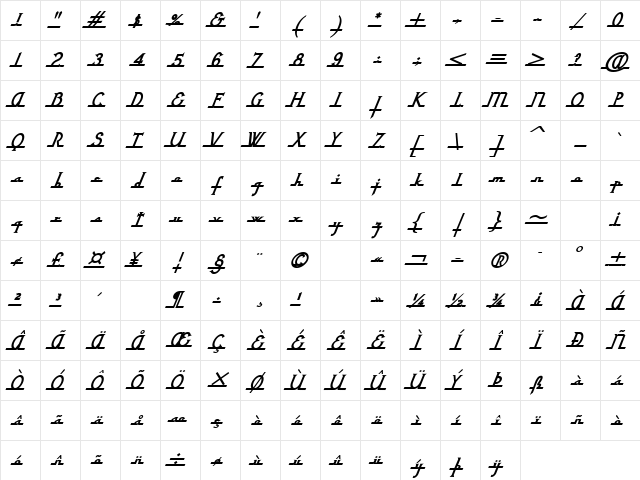
Complete NixonScript Regular glyph index. Displaying only characters natively supported by NixonScript Regular font.
NixonScript flows with the natural rhythm of handwritten lettering, making it ideal for designs that call for warmth and personal expression.
Font Pairing: Combine NixonScript with a simple geometric sans for maximum contrast - the tension between flowing curves and clean structure is a classic typographic pairing.
Pro Tip: Use NixonScript for short runs of text - names, titles, or taglines. Extended body copy in script faces tires the eye quickly.